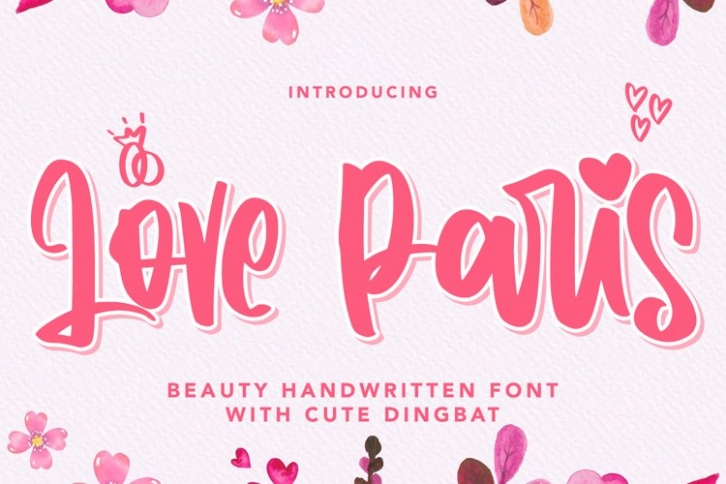
Love Paris is a gorgeous font that was realeased on January 1, 2022. The font can be used in many style contexts and design environments. Perfect for invitations, magazines, websites, logos, and more! It was designed by plusstore and the file size is 17.24 MB. Thanks for checking out this font!